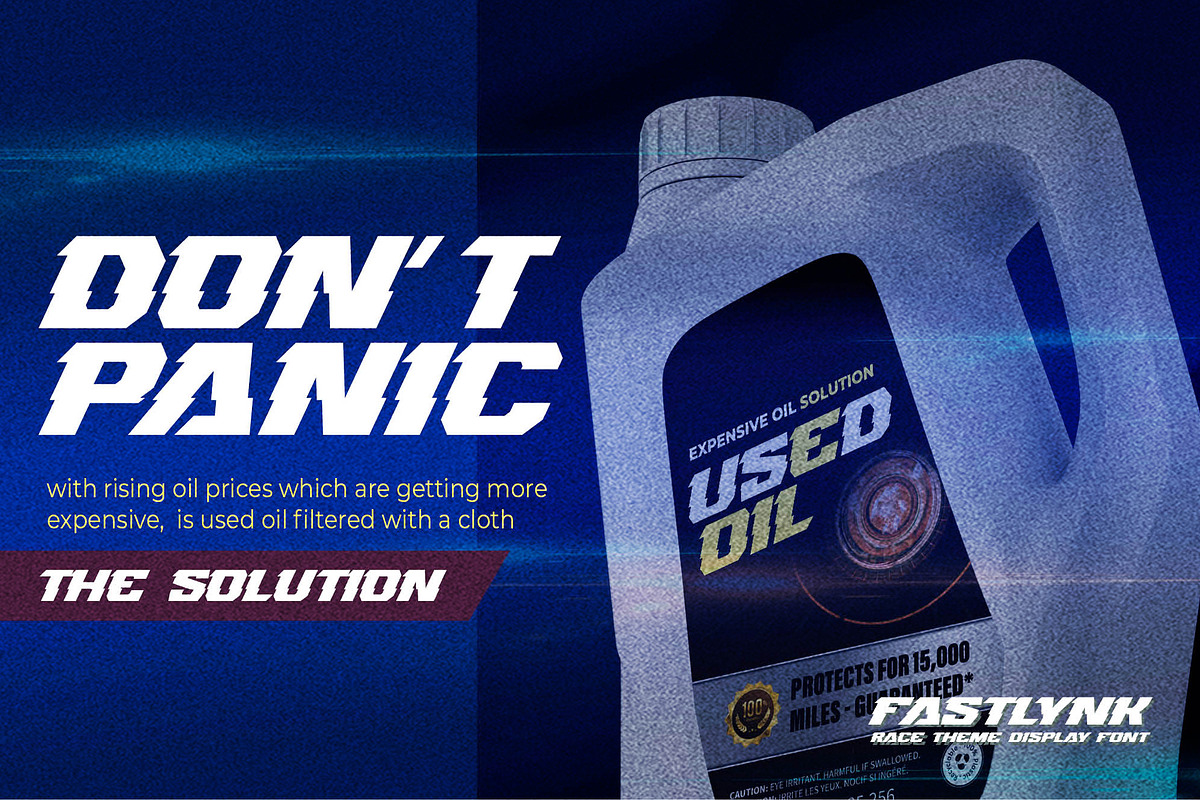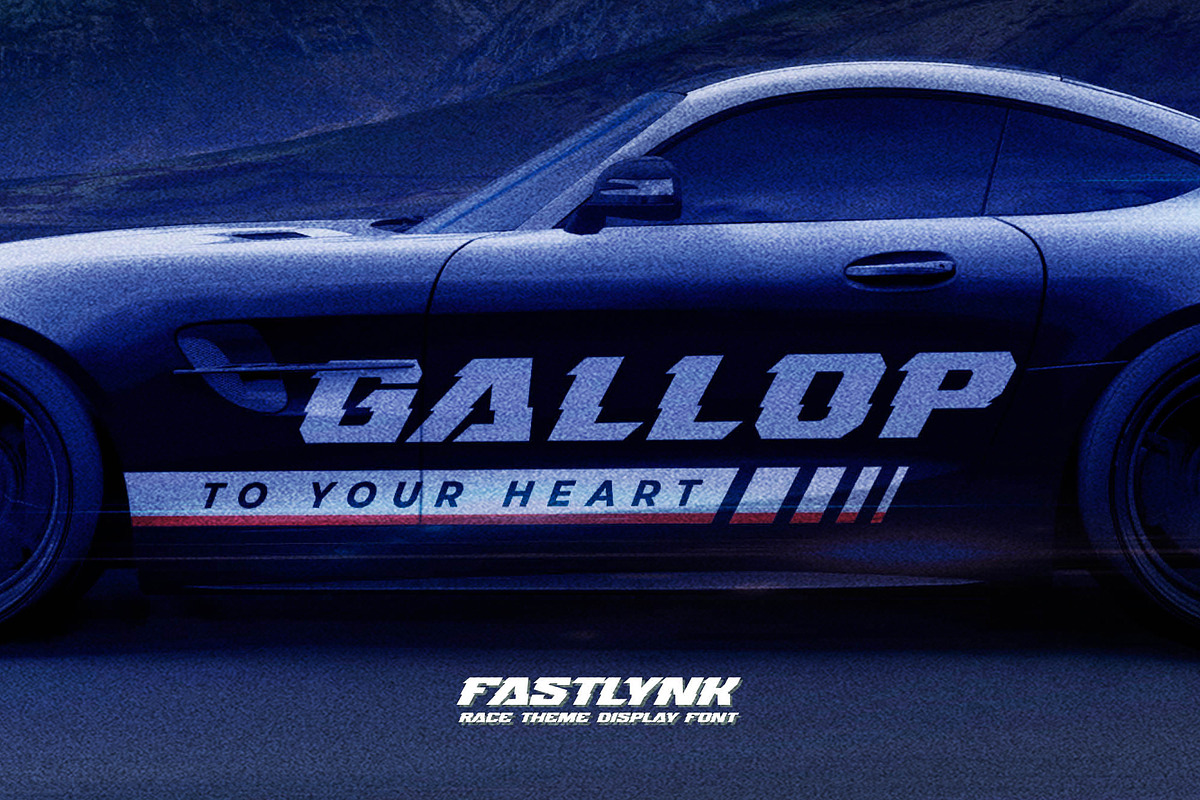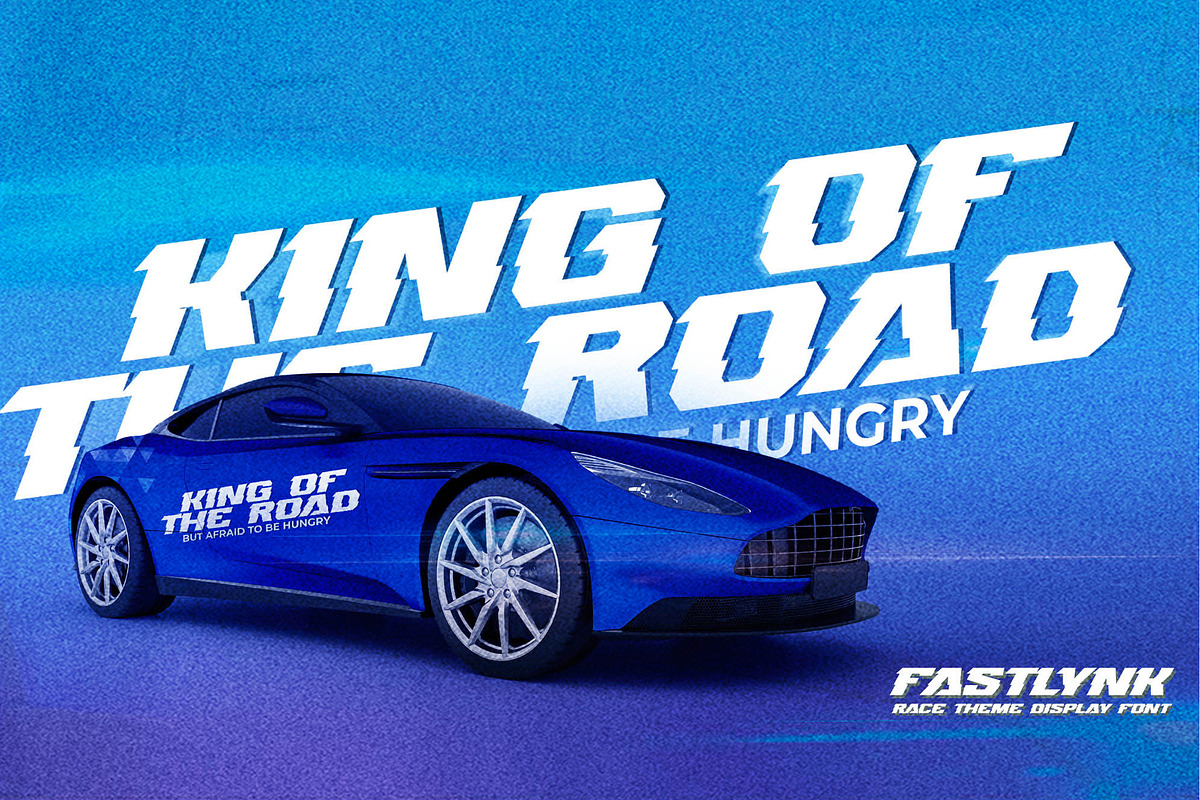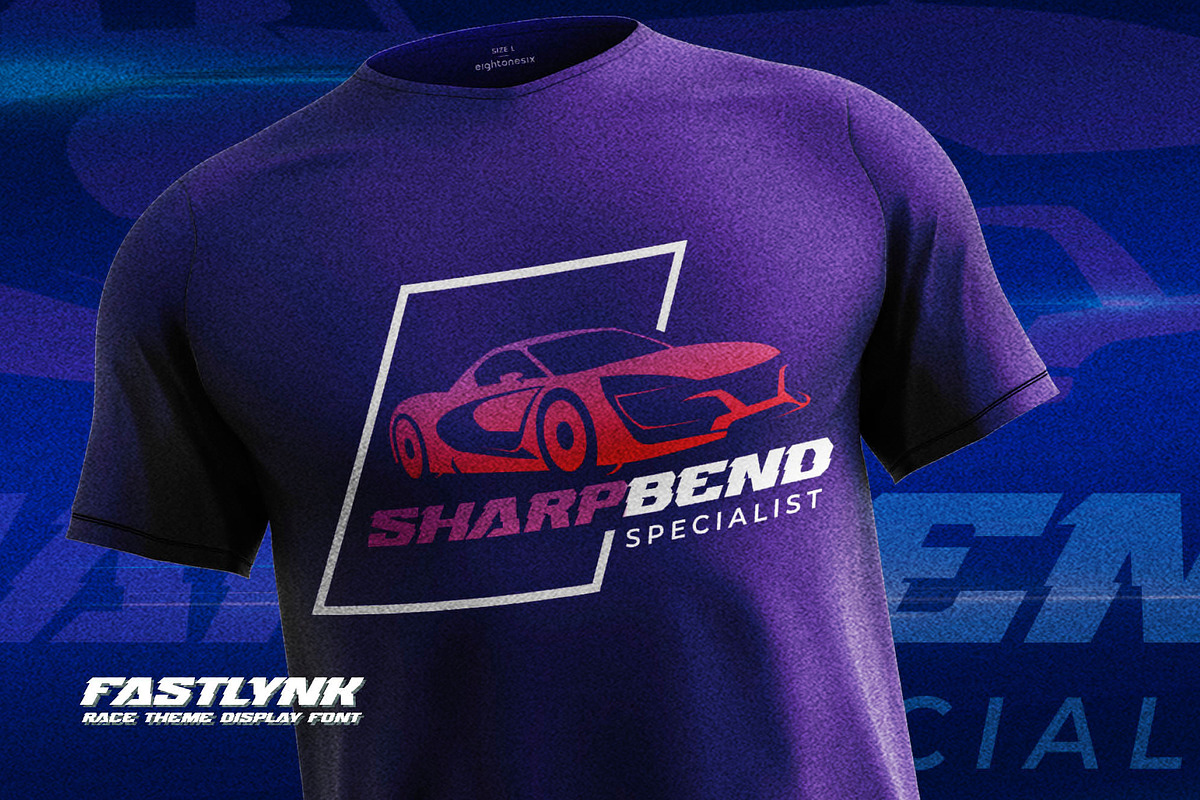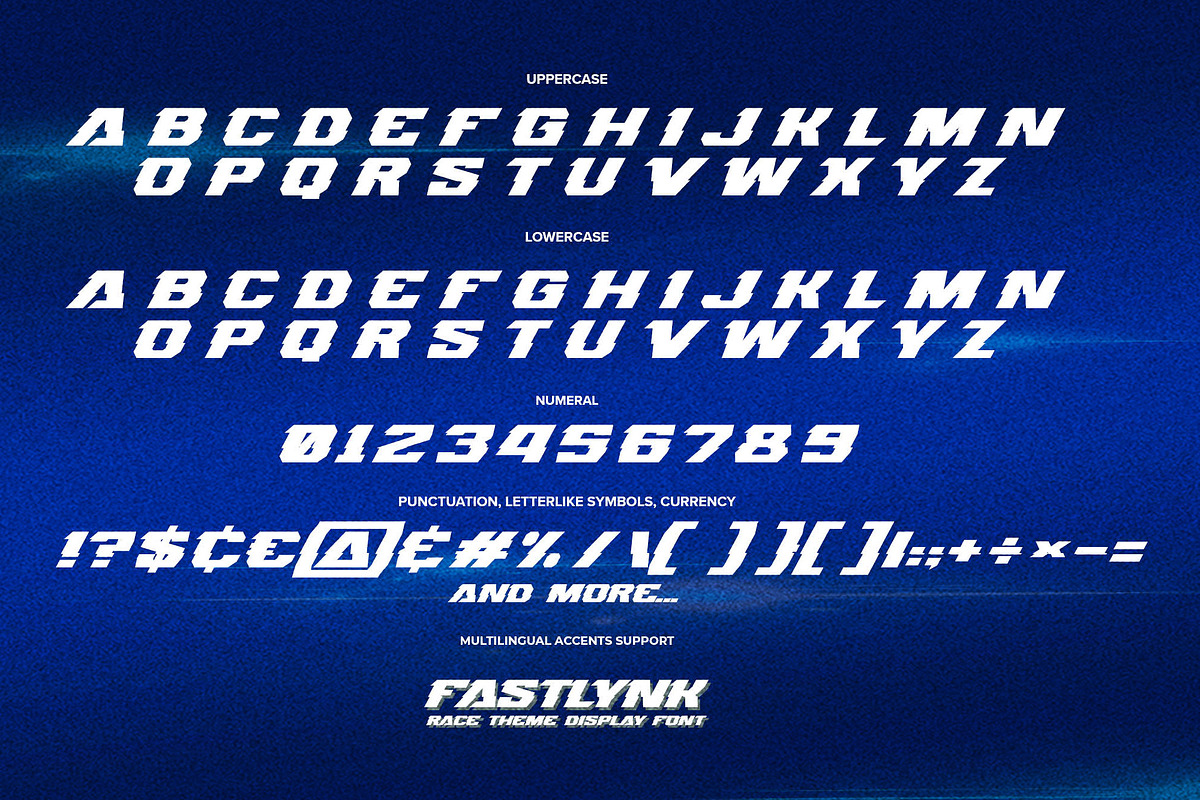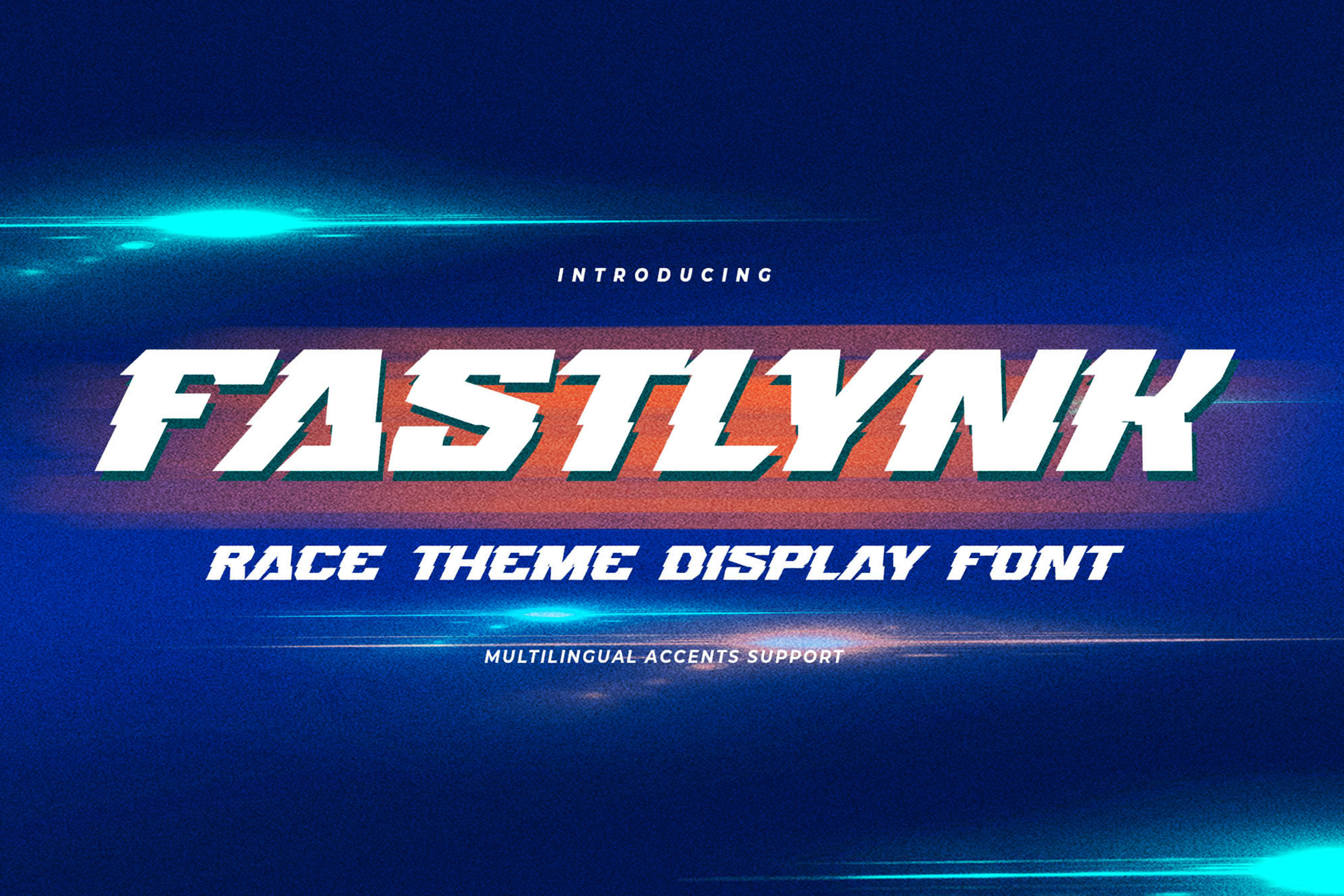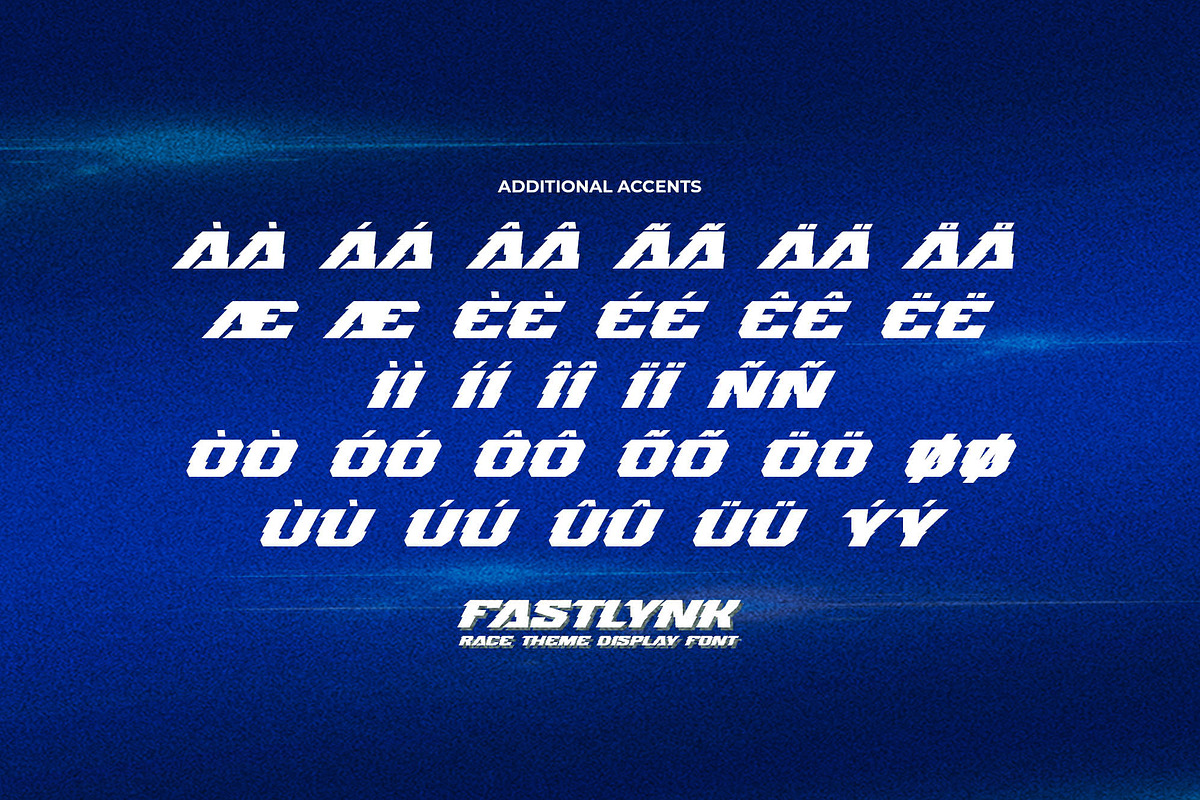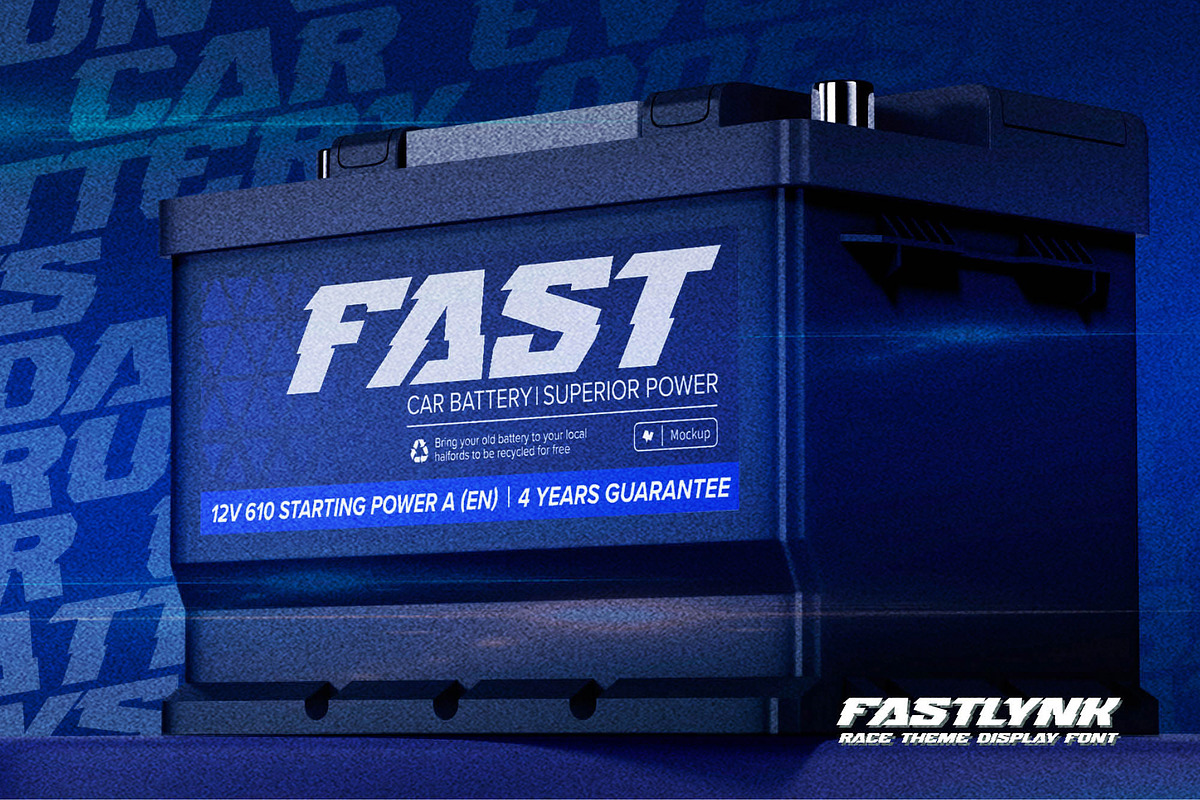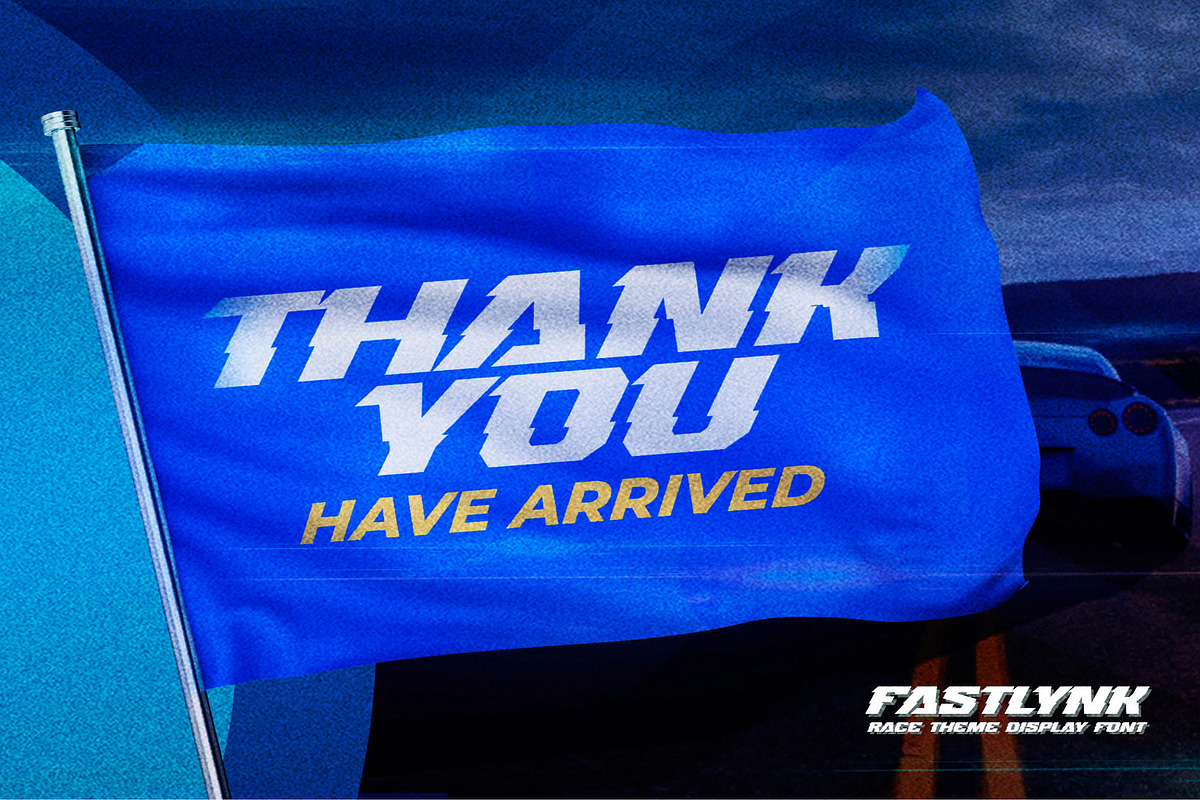
FASTLYNK - Race Theme Display Font
Here comes a New Font,Introducing FASTLYNK is a Race Theme Display Font.This Handmade Display Font with a stylish touch inspired by the famous minimalist logo
FASTLYNK has is perfect for the purposes of designing templates, brochures, videos, advertising branding, logos and more. That is Sport Display with strong and Sport nuances.This font is great for your next creative project such as logos, printed quotes, invitations, cards, product packaging, headers, Logotype, Letterhead, Poster, Label, and etc.Crafted manually with love and passion. This handmade font will make your design has a beautiful natural touch for each details. It is perfect for any design project as Invitation, book cover, craft or any design purposes.
- Multilingual Accent